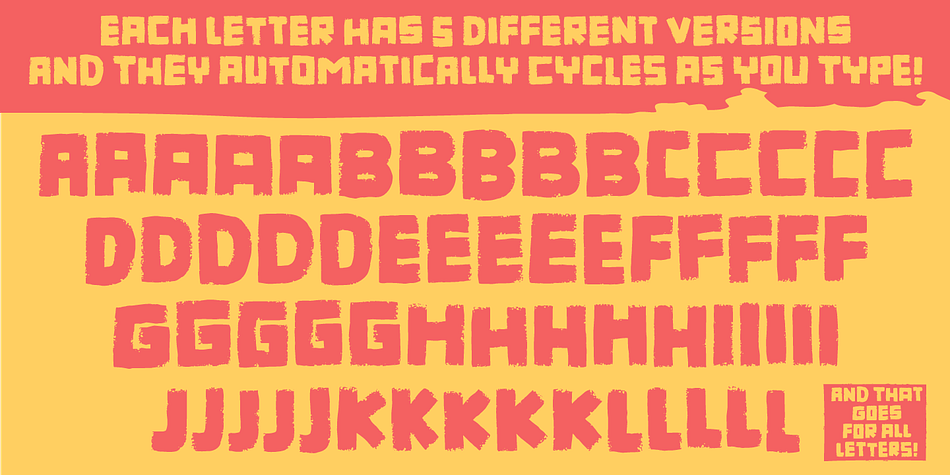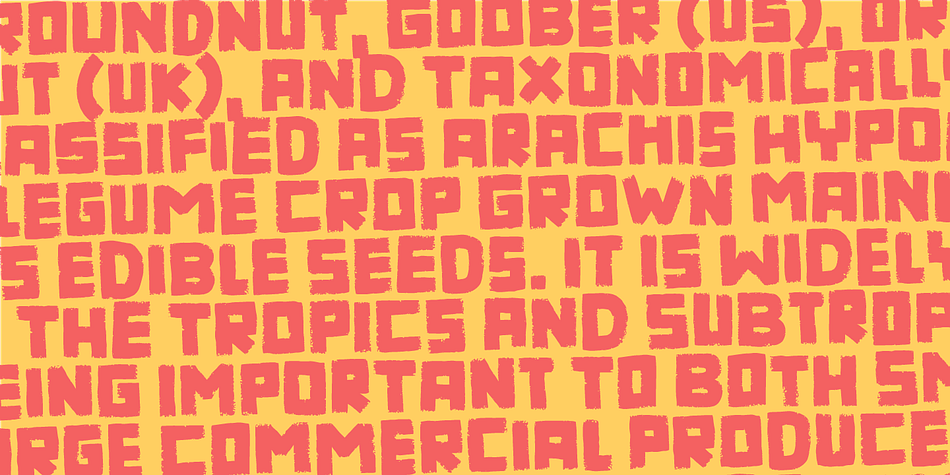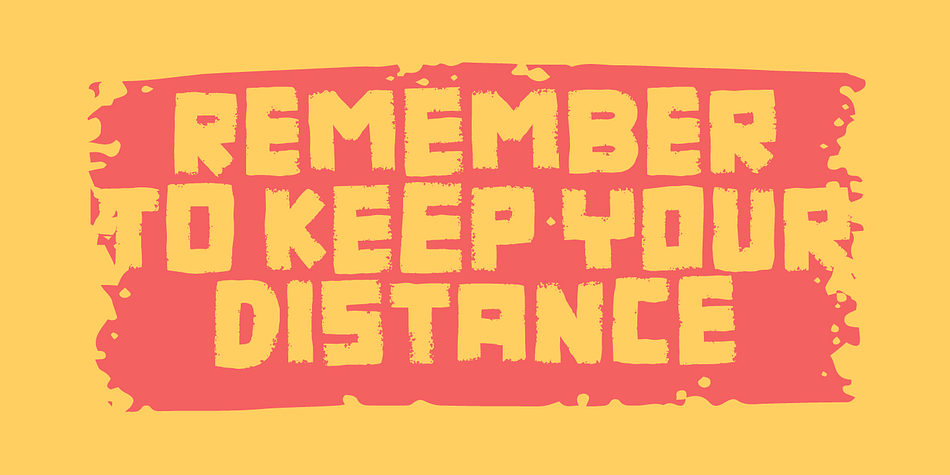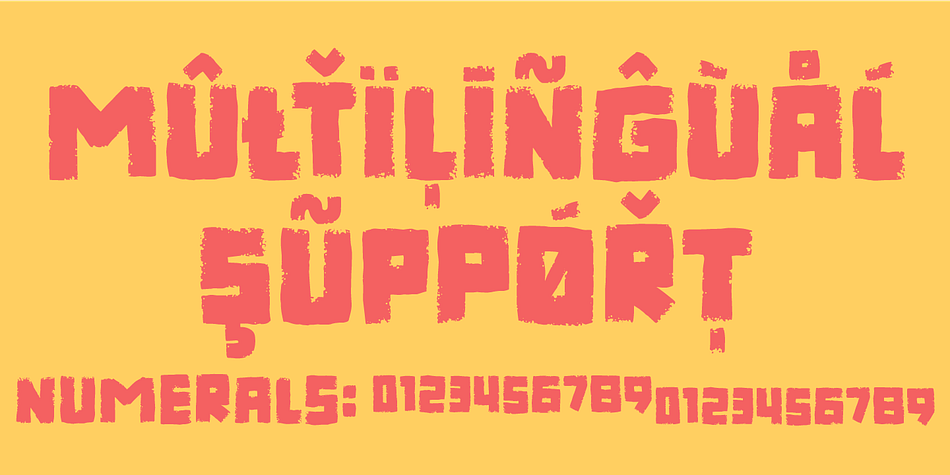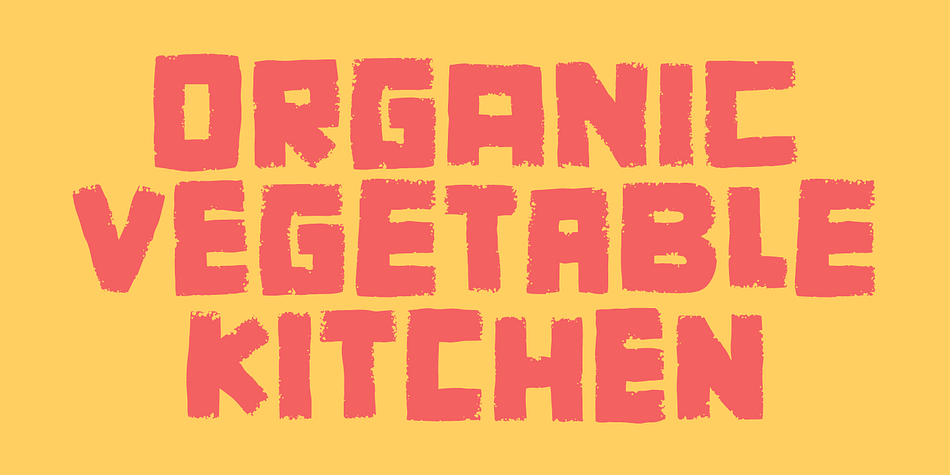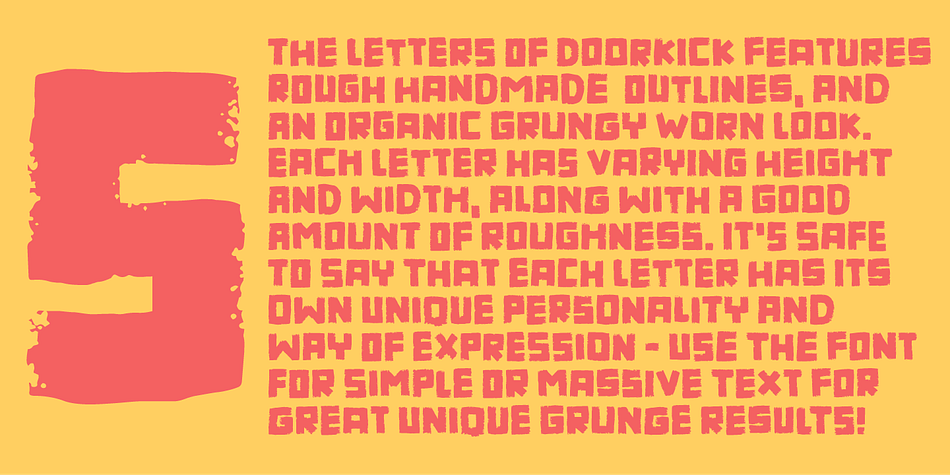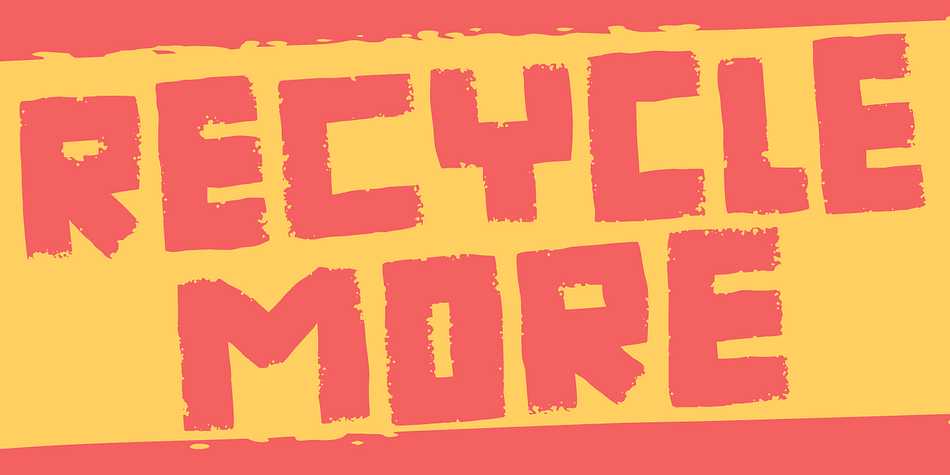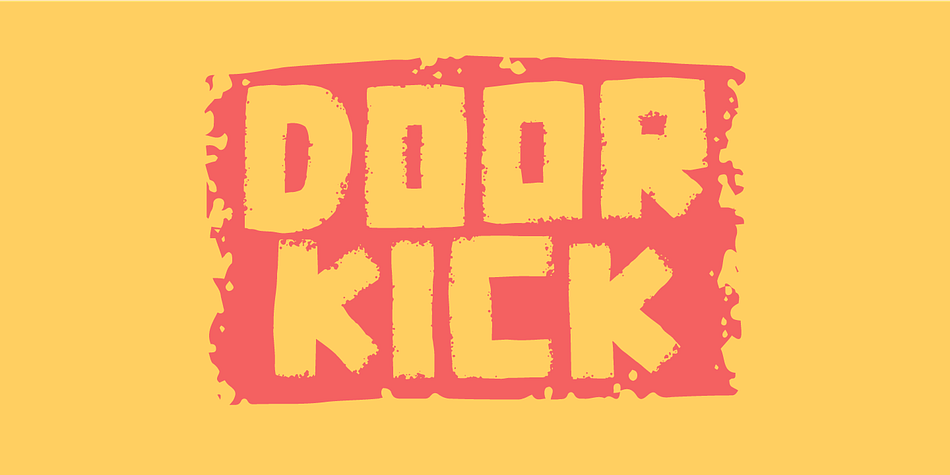
Designed by Jakob Fischer, Doorkick is a grunge and hand display font family. This typeface has two styles and was published by Bogstav.
Doorkick is my grungy handmade font with rough lines and a squarish look. Each letter has 5 different versions, which automatically cycles as you type - leaving your text with a super lively and natural/organic look.
I’d say that Doorkick is best for short words or shoutouts, but try it out it massive text too! I dare you! :)